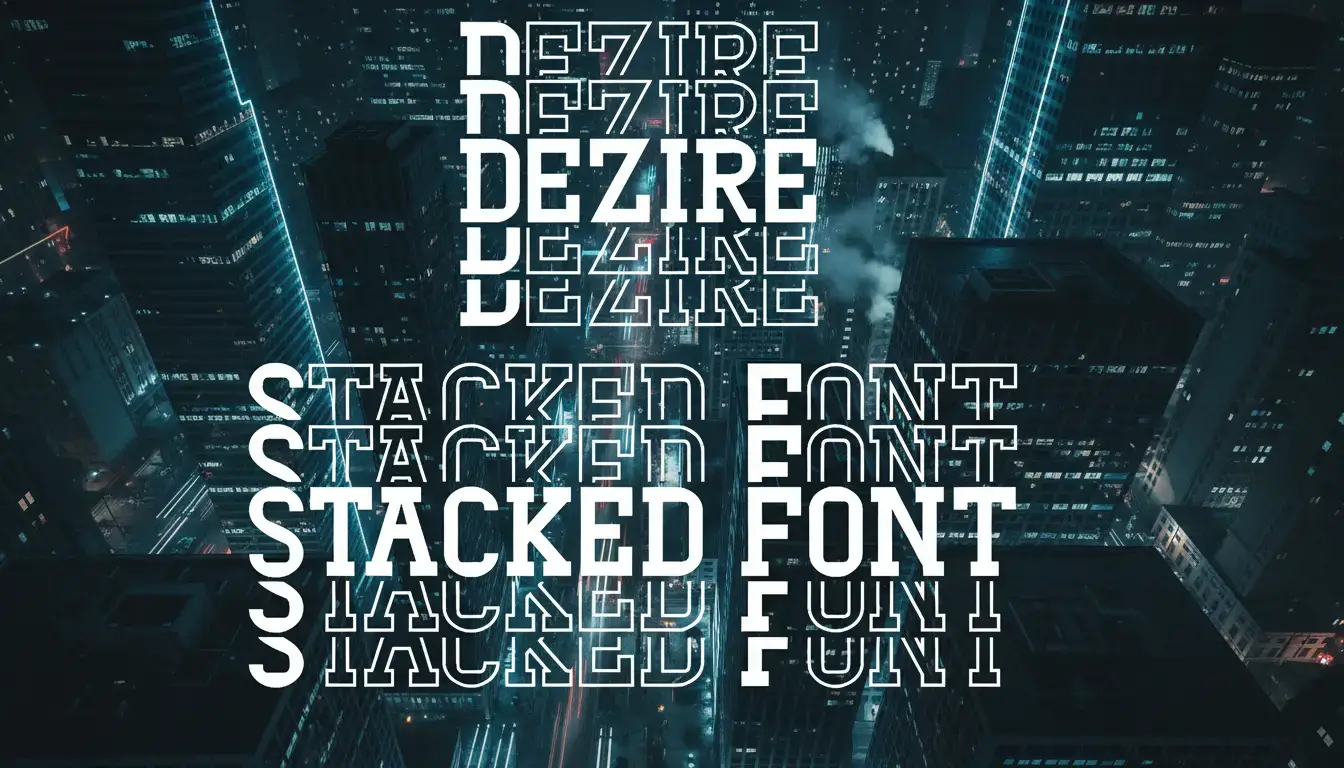
Dezire Stacked Font
Dezire Stacked
Dezire Stacked is a fancy font created by Dasagani Ramesh Goud and released through Muse-Master. It's a decorative display font with plenty of personality, made to grab attention. It's a free download, and you can try it with your own text in the preview above first.
What You Can Type With Dezire Stacked
You get every letter from A to Z in both cases and all the numbers from 0 to 9, which means Dezire Stacked can handle full sentences, dates and prices. Everyday marks like &, !, ? and @ are there too. There are no accented letters like é or ñ, so it's best kept to English text.
Where Dezire Stacked Works Best
Dezire Stacked is a natural fit for posters, logos and eye-catching headlines. Use it for one standout word or headline and let simpler fonts handle the rest.
Does Dezire Stacked support accented letters?
No. Dezire Stacked has no accented letters such as é, ñ or ü, so it's best for English text.